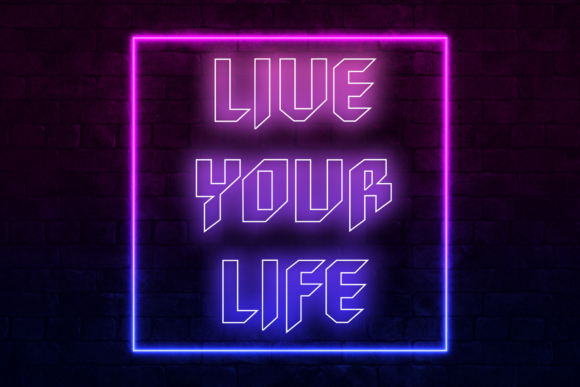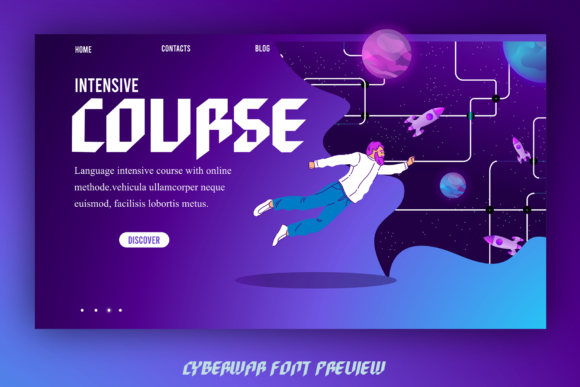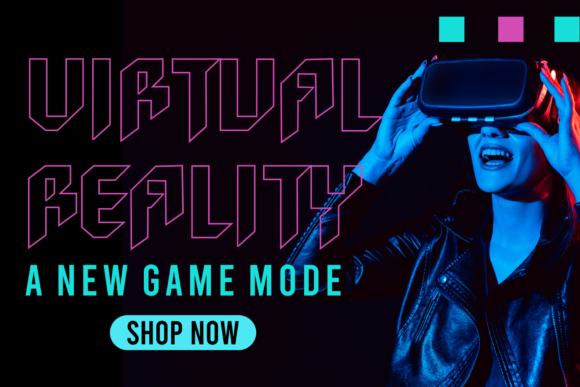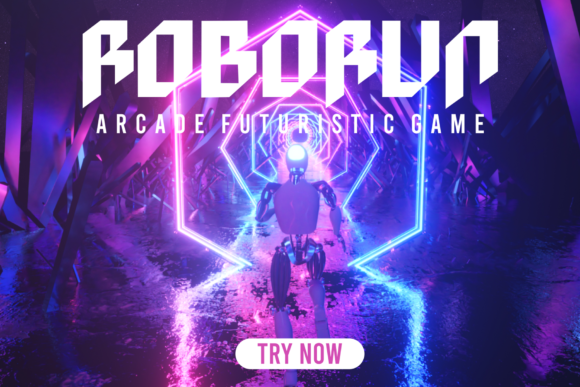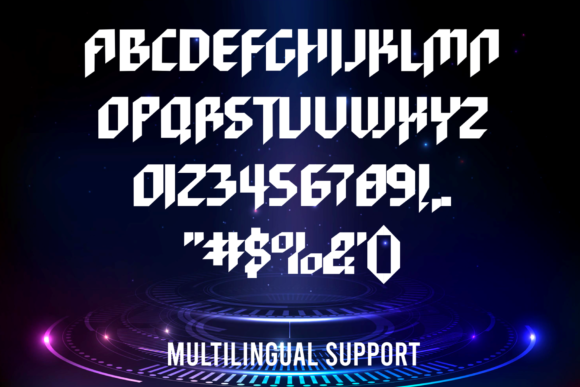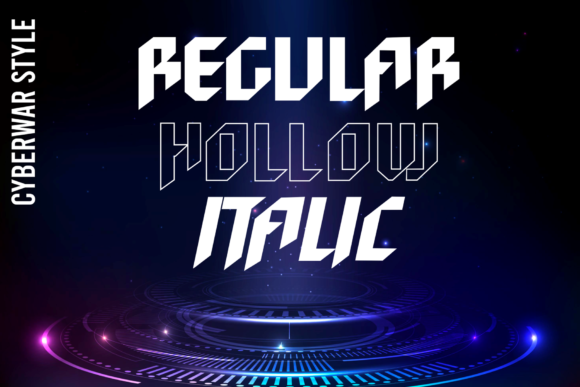
The Cyberwar Font: A Futuristic Display Powerhouse
I’ll never forget the design project that led me to discover the Cyberwar font. I was working on a futuristic sports branding campaign, and my client asked for a bold, edgy font that would make their logo stand out. I scoured the internet, tried countless fonts, but nothing seemed quite right. That was until I stumbled upon Cyberwar – a game-changing display font that brought the entire design to life!
- ✨ **Futuristic vibe**: Cyberwar’s sleek lines and geometric shapes instantly evoke a sense of high-tech sophistication.
- ✅ **Versatility**: This font is perfect for web designs, sports branding, and any project that needs a bold, modern edge.
- 💥 **Impact**: Cyberwar makes a statement – it’s designed to grab attention and leave a lasting impression.
While Cyberwar is an excellent font, it’s not without its limitations. ⚠️ Keep in mind that its futuristic design might not be the best fit for:
- Serif-heavy or traditional designs
- Body text or long-form content
- Projects requiring a more elegant or refined aesthetic
Also, some users might find that 🤔 certain characters or glyphs don’t quite align as expected. However, these minor issues can often be resolved by experimenting with font settings or using OpenType features.
The Designer Inspiration Behind Cyberwar
Rumor has it that Cyberwar was inspired by the neon-lit cityscapes of Tokyo’s Akihabara district. The font’s designer, a self-proclaimed sci-fi enthusiast, aimed to capture the essence of futuristic technology and high-energy excitement. While we can’t confirm the exact story, one thing is clear: Cyberwar is a design powerhouse that’s here to stay.
| Font Name | Cyberwar Font |
| Author | sipanji figuree |
| What type of designs is Cyberwar best suited for? | Cyberwar excels in futuristic, bold, and edgy designs, such as sports branding, web designs, and high-tech projects. |
| Can I use Cyberwar for body text or long-form content? | While possible, Cyberwar is primarily designed for display purposes. It might not be the best choice for body text or long-form content due to its bold, futuristic aesthetic. |
| Does Cyberwar support OpenType features? | Yes, Cyberwar supports OpenType features, glyphs, and stylistic alternates, allowing for advanced typographic control and customization. |